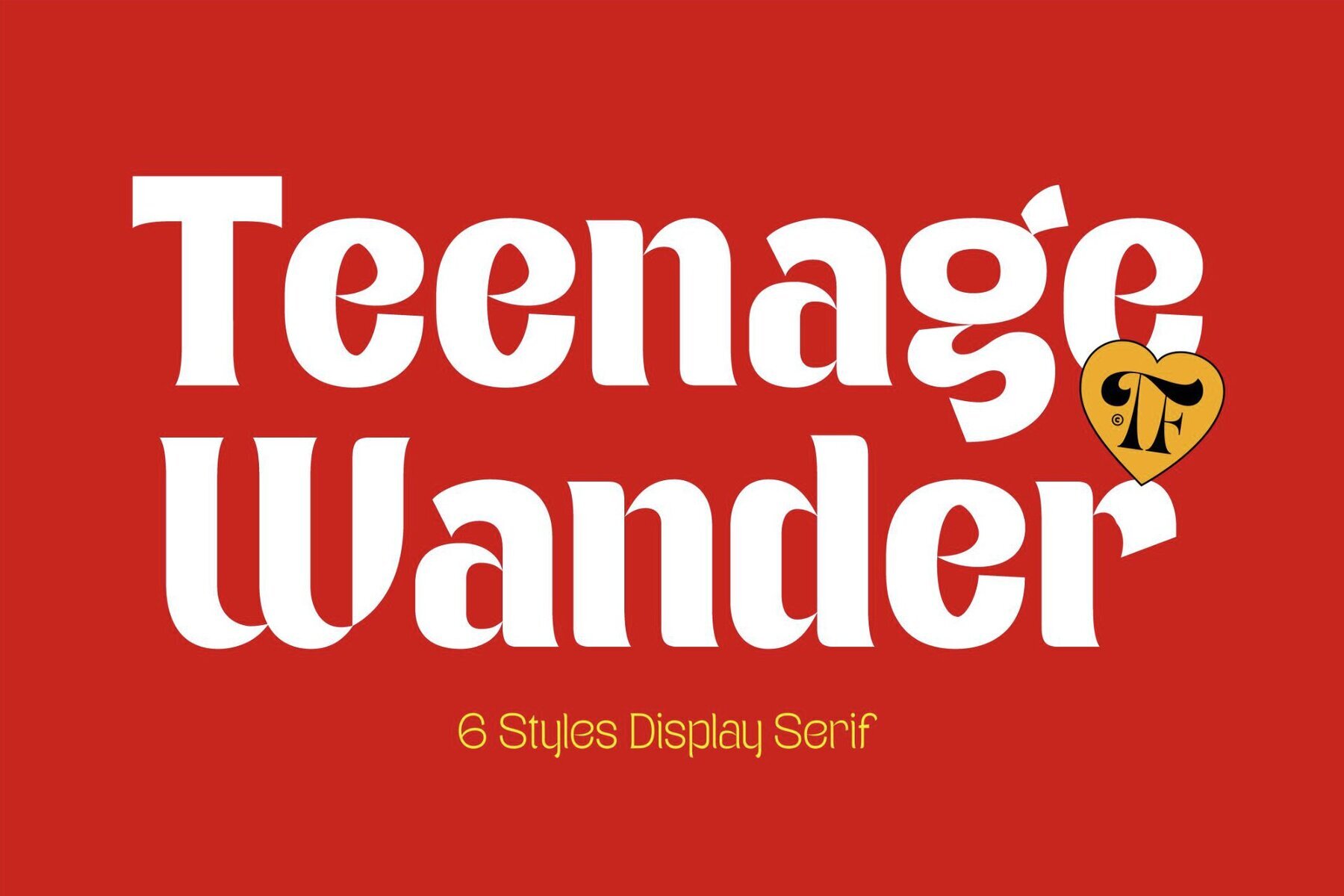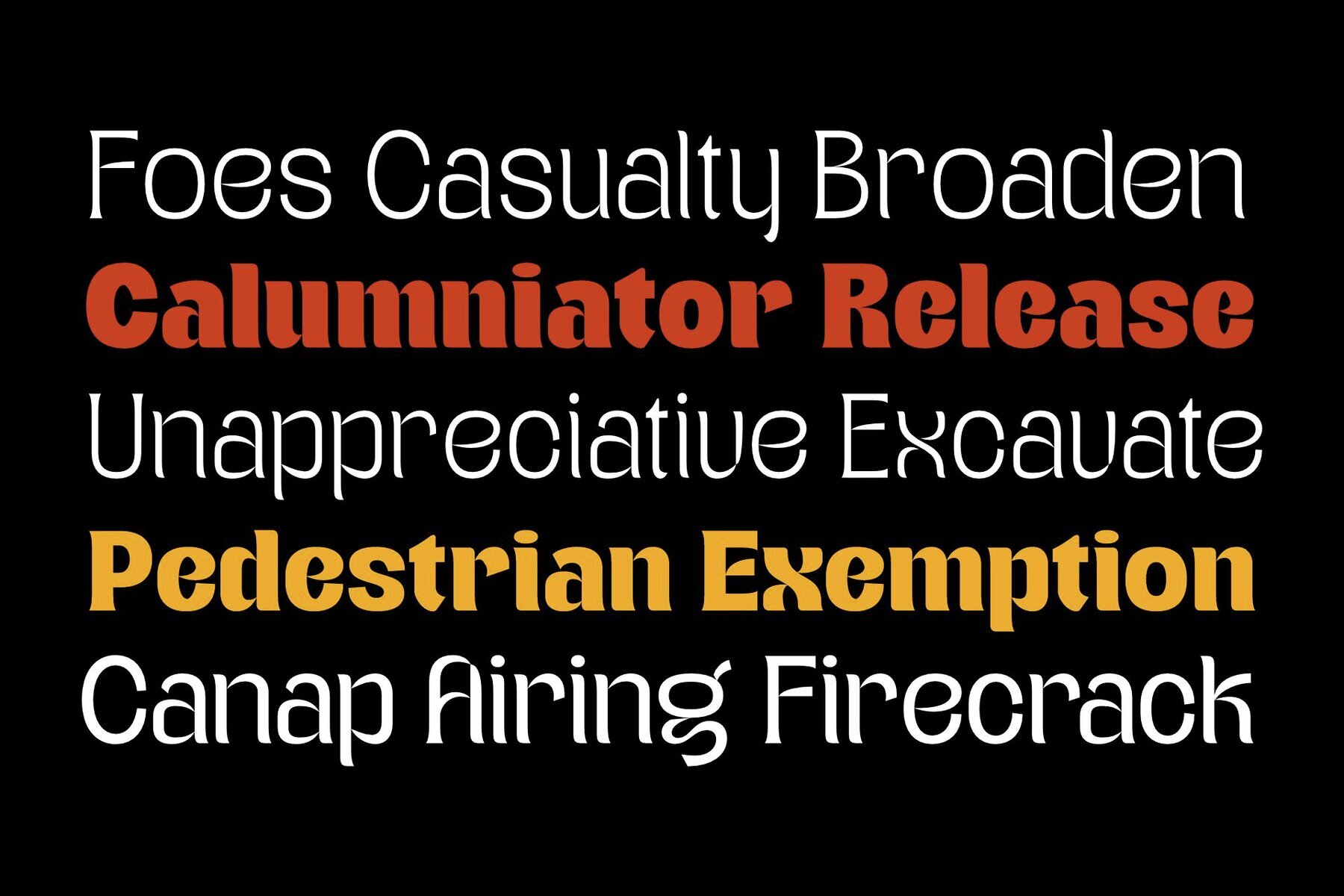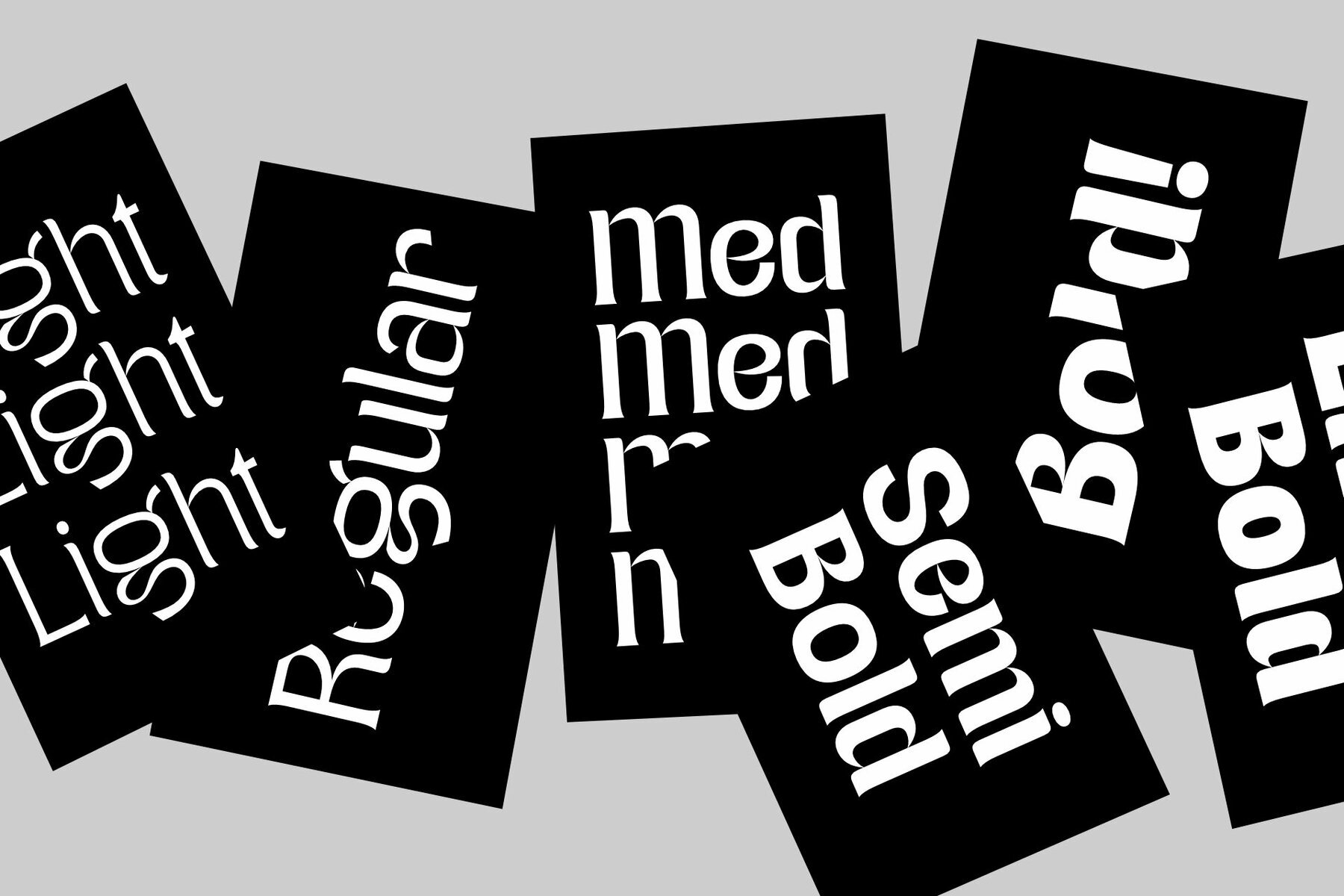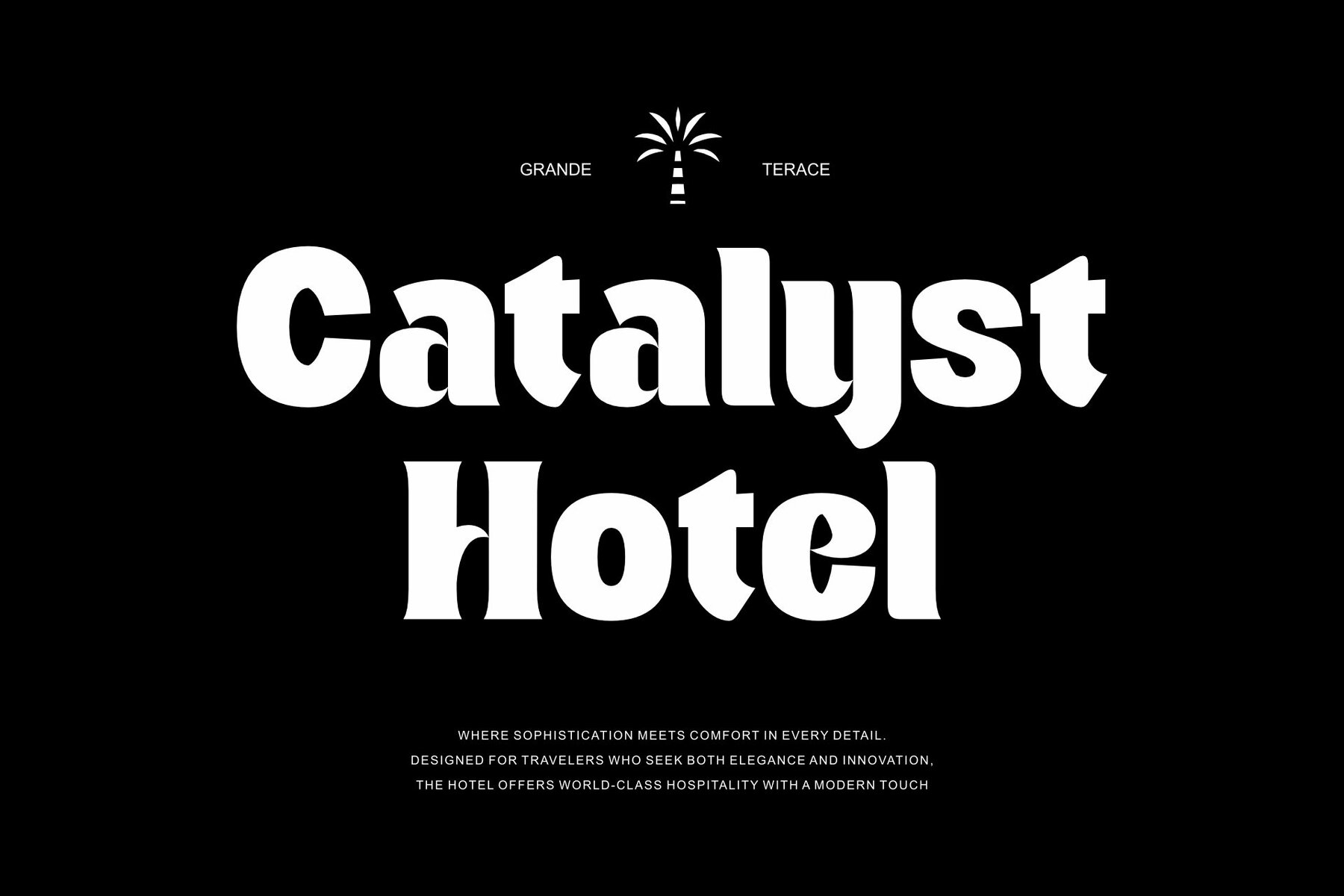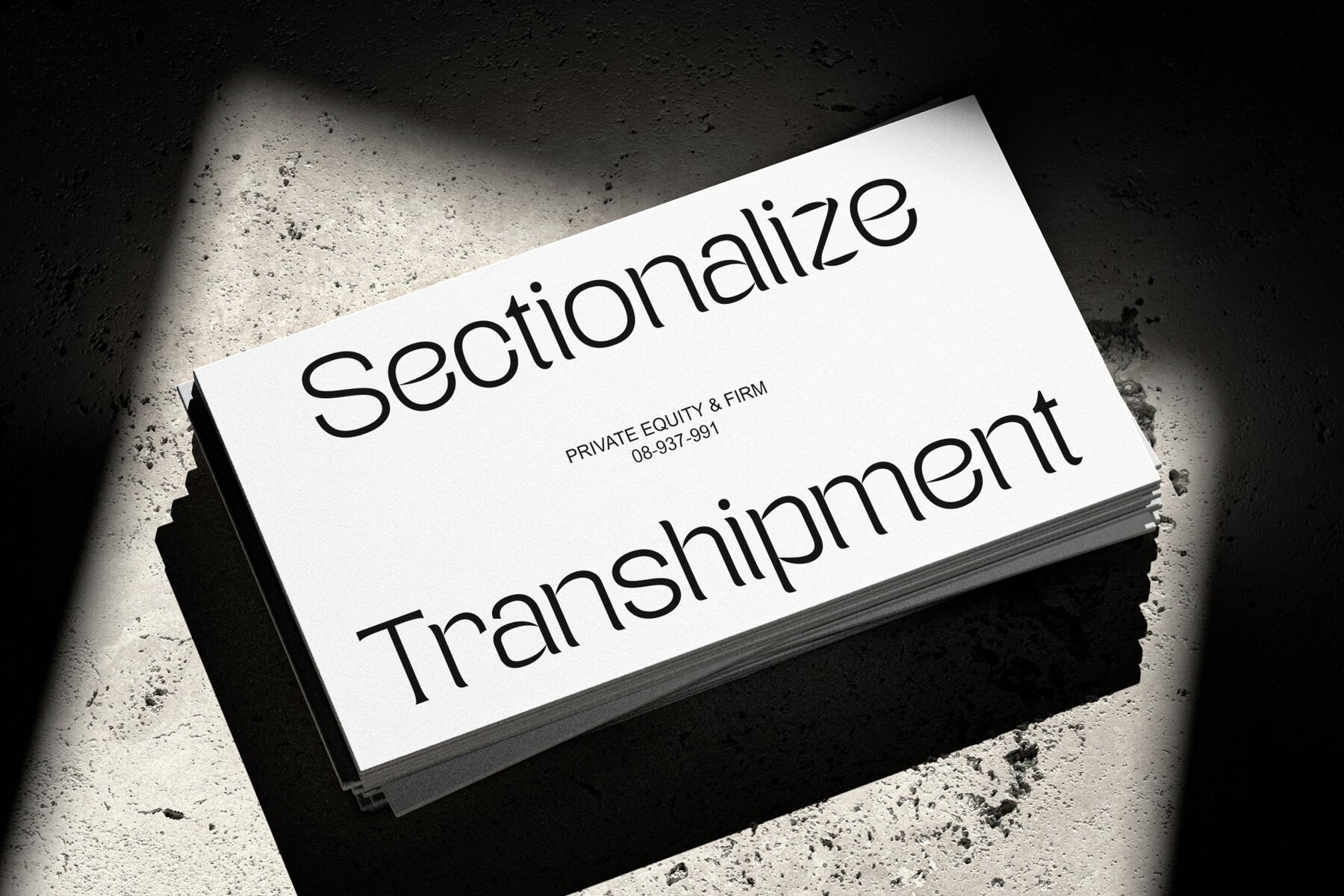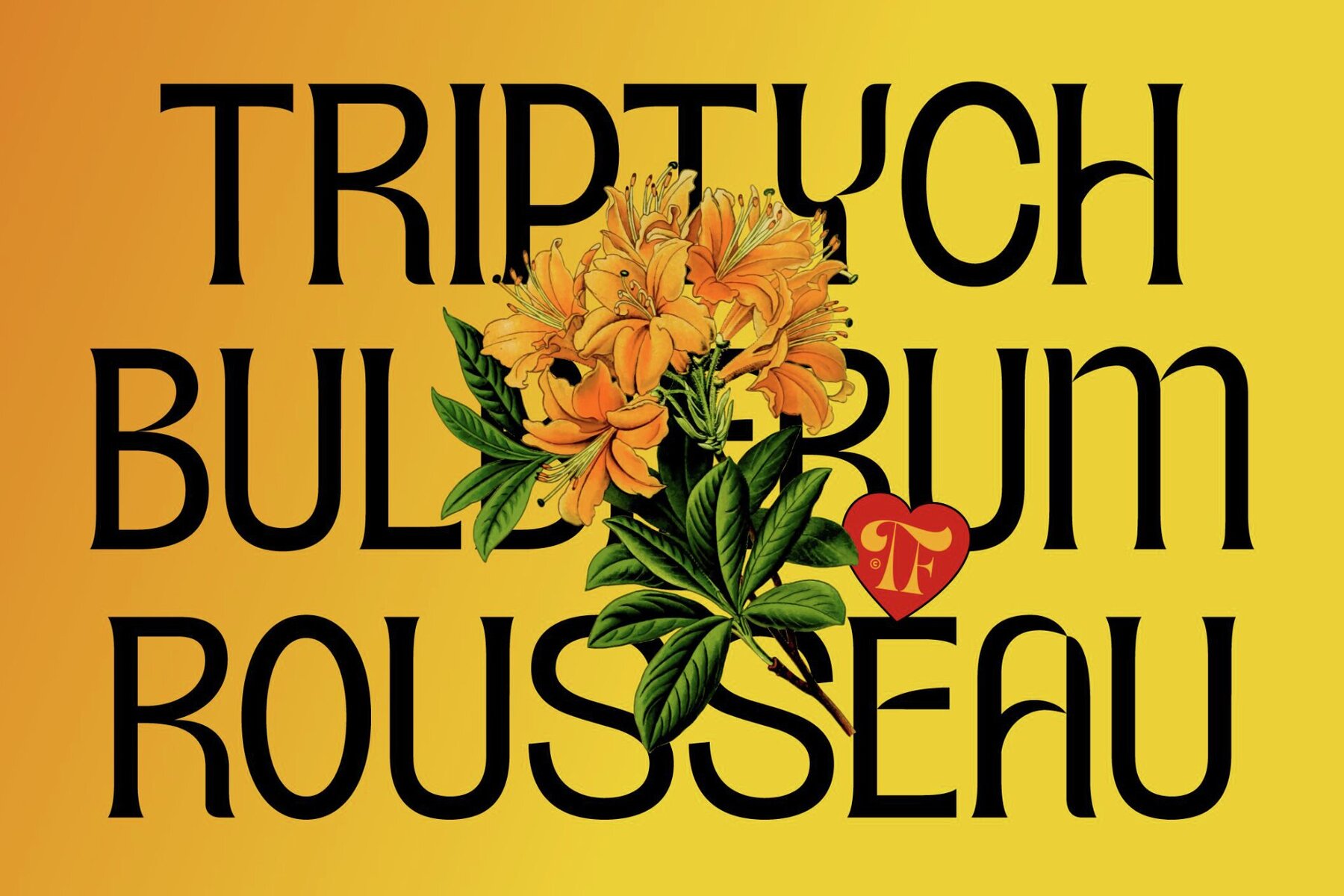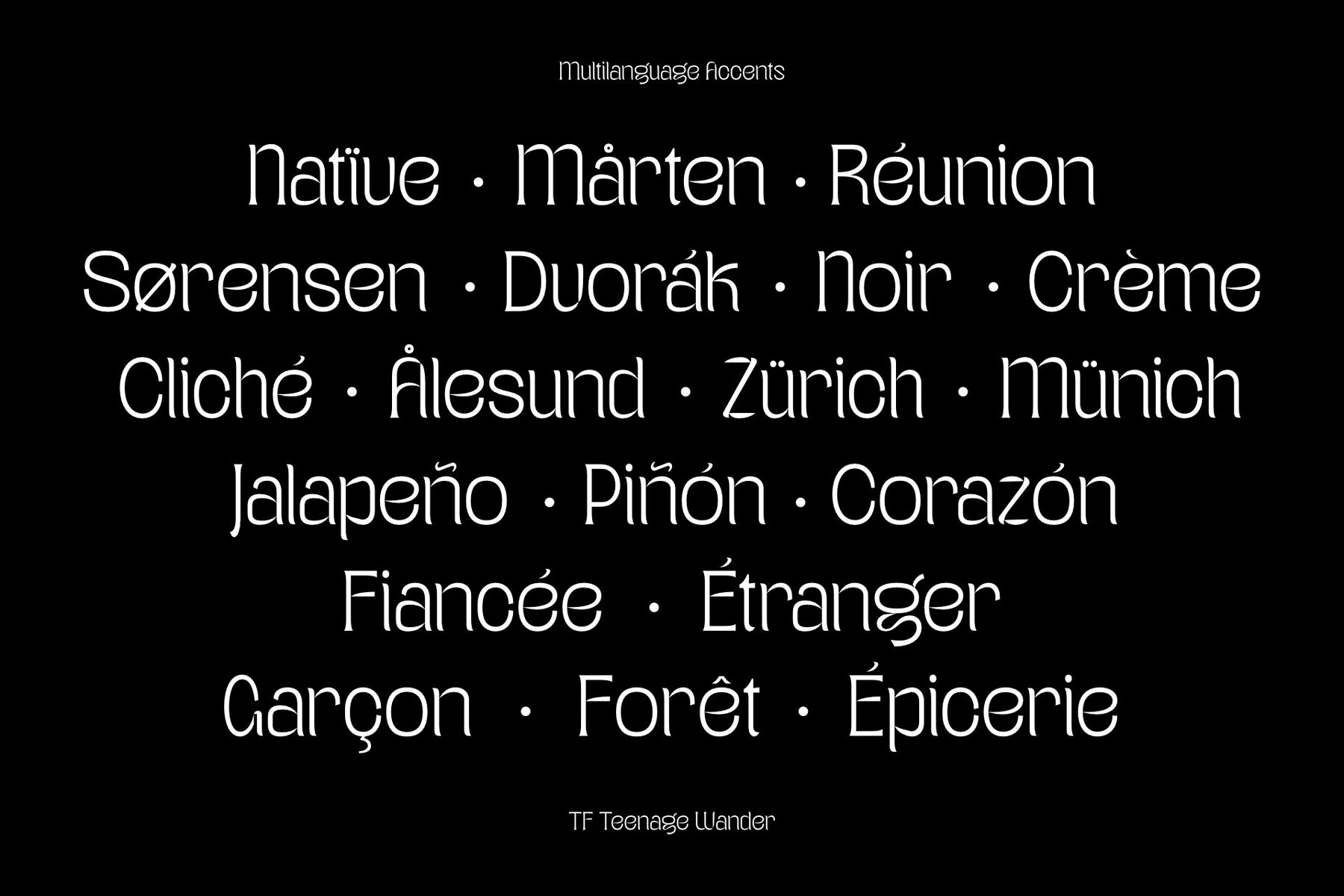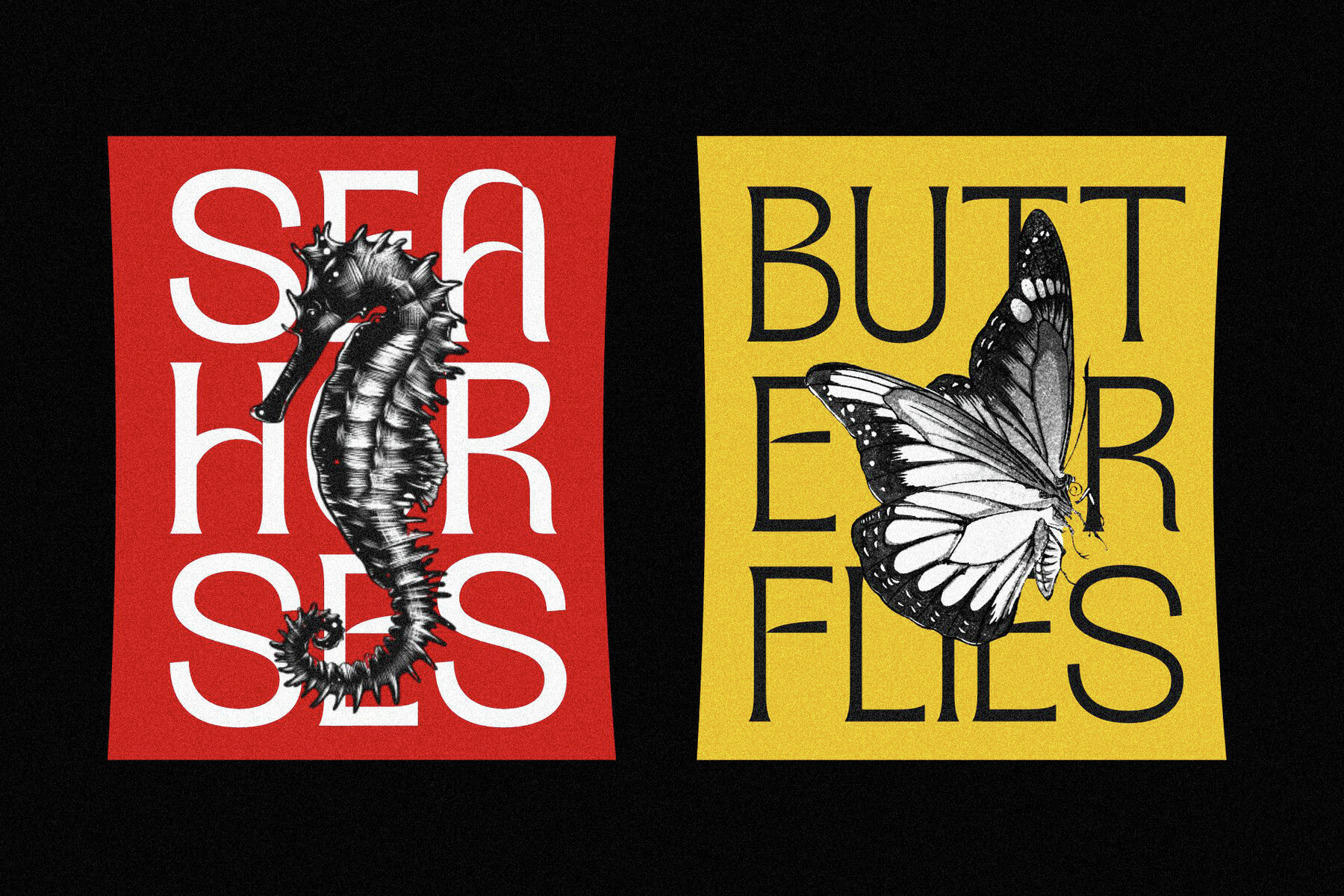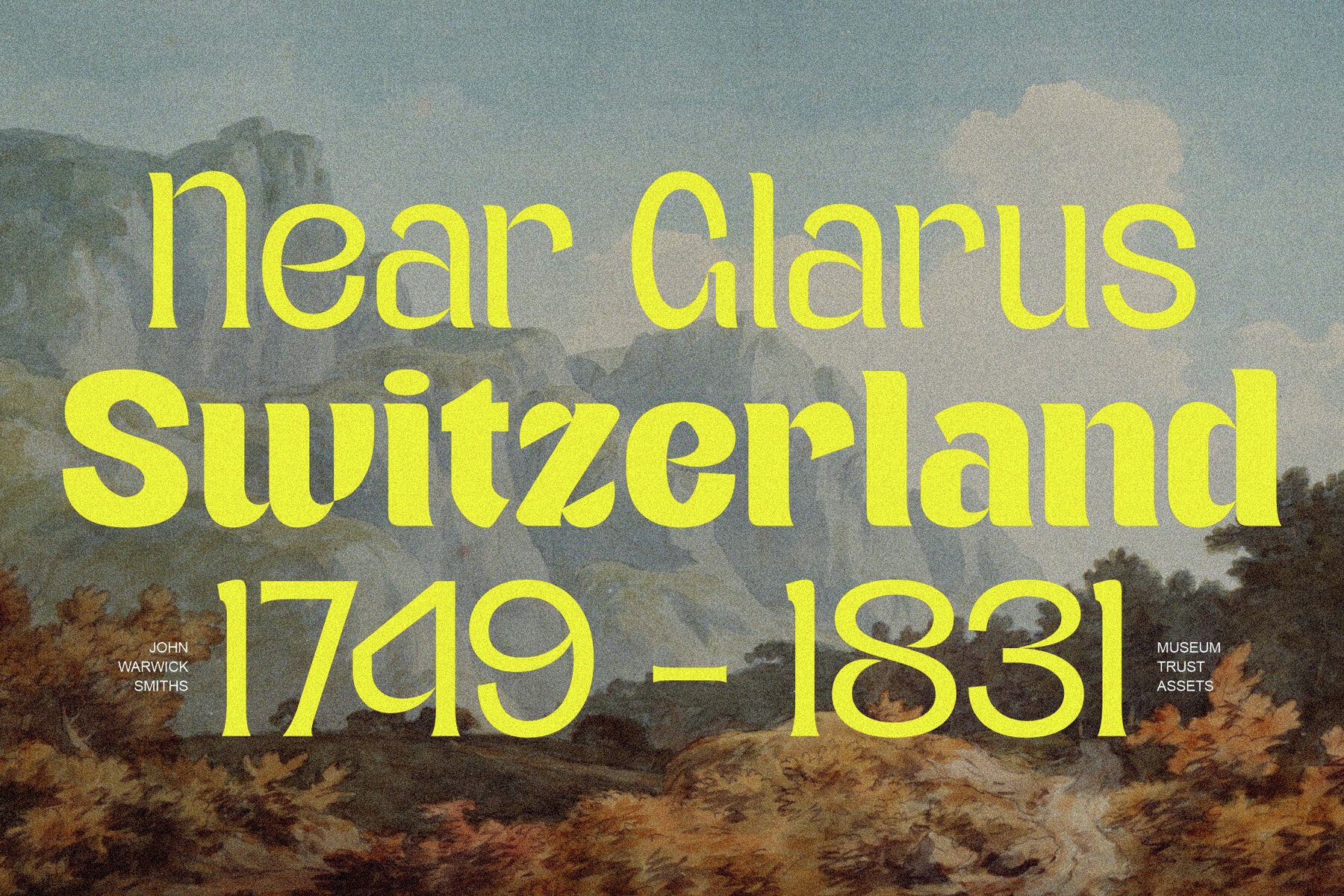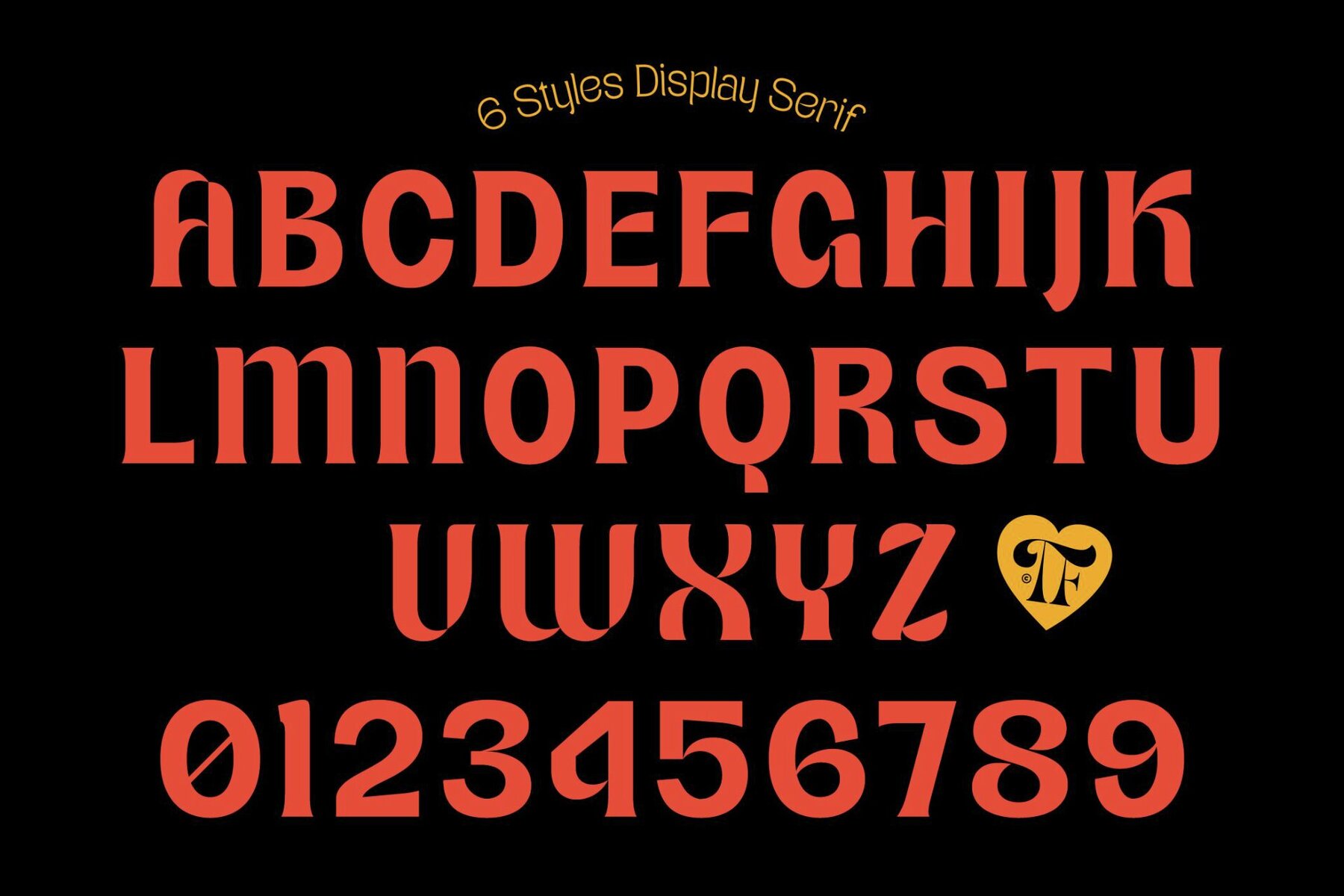
Teenage Wander Font
Teenage Wander is a modern display serif font that encapsulates the vibrancy of youth, creativity, and audacious self-expression. With a variety of six styles ranging from Light to Extra Bold, this typeface provides ample room to experiment with tone and presence. This font is the perfect companion for editorial design, fashion branding, and posters that require a hint of sophisticated edge. Its elegance is matched by a confident flair, embodying a youthful rebellious spirit with visionary undertones.Teenage Wander: Stylish Display Serif with Bold Personality